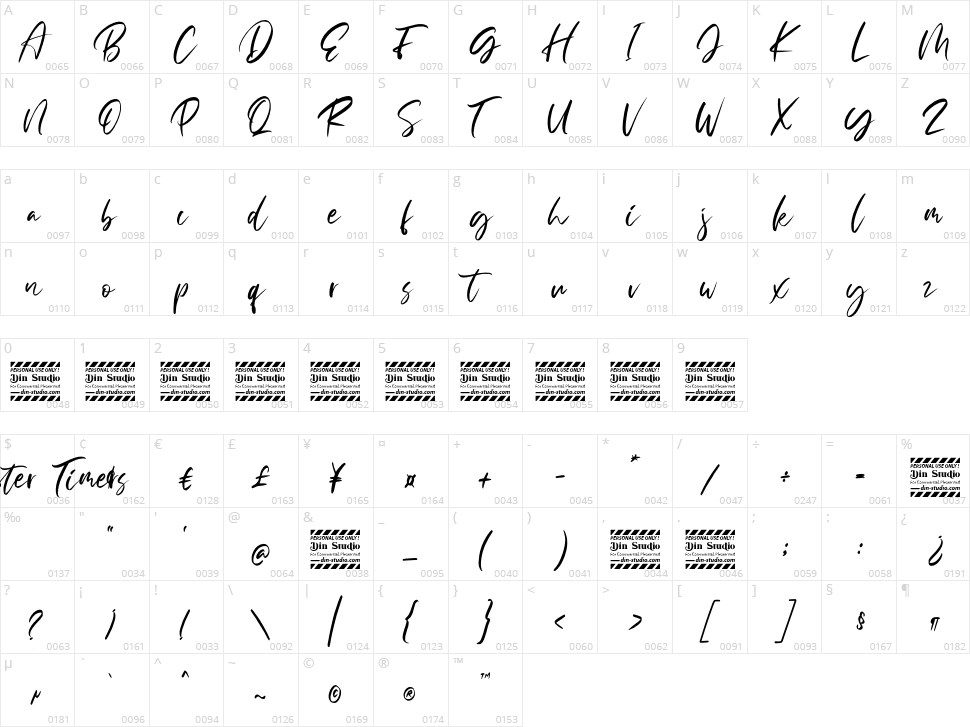
Blaster Timers
Blaster Timers is a classy brush font. Made for any professional project branding. Every letter has a
unique and beautiful touch.
Blaster Timers is a classy brush font. Made for any professional project branding. Every letter has a
unique and beautiful touch.